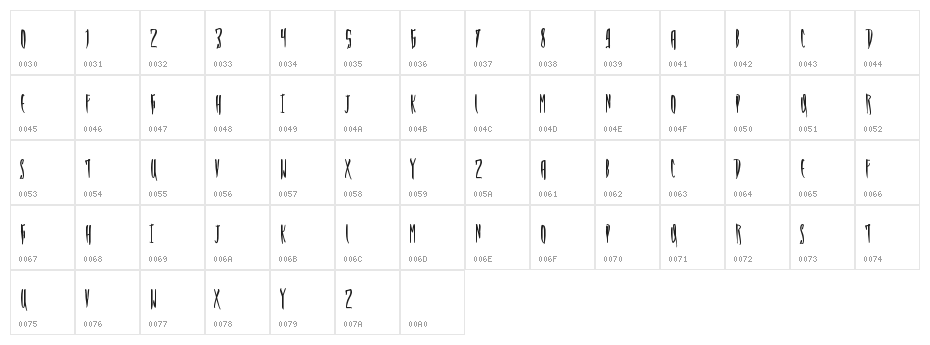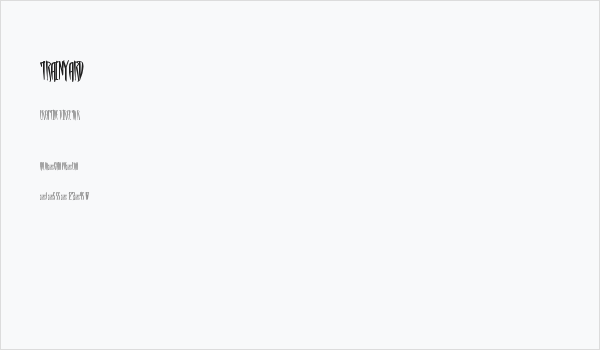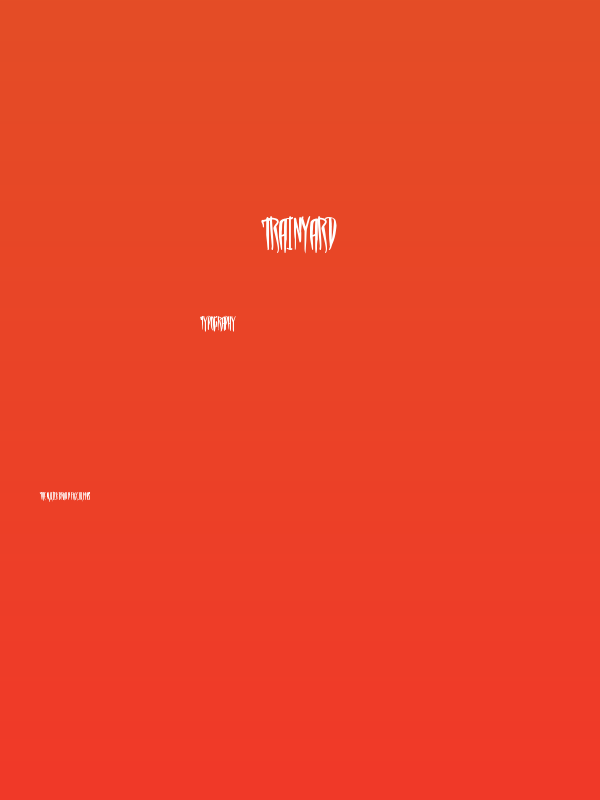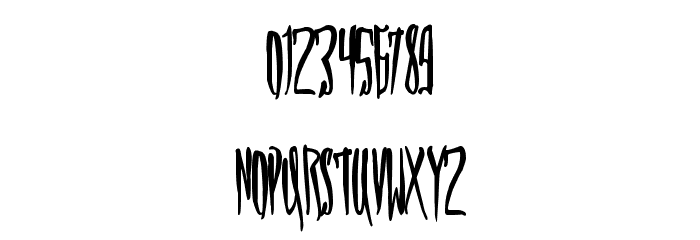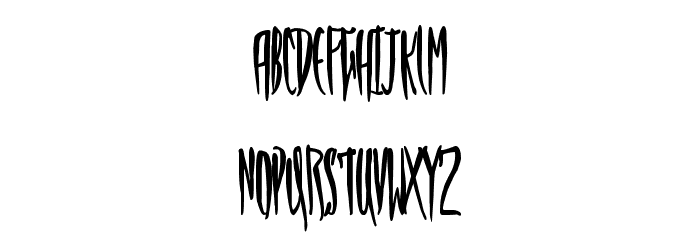
TrainYard Font
TrainYard Description
This font features a bold, expressive style with elongated, narrow characters that convey a sense of movement and energy. The strokes are uneven, giving it a hand-drawn, graffiti-like appearance. The uppercase and lowercase letters maintain a consistent height, enhancing its uniformity. The numbers and special characters follow the same dynamic style, making it suitable for creative and informal designs. Its unique character shapes and high legibility make it stand out in any project.
| Proposed Projects | Ideal for street art designs, music album covers, urban-themed posters, and edgy branding projects. |